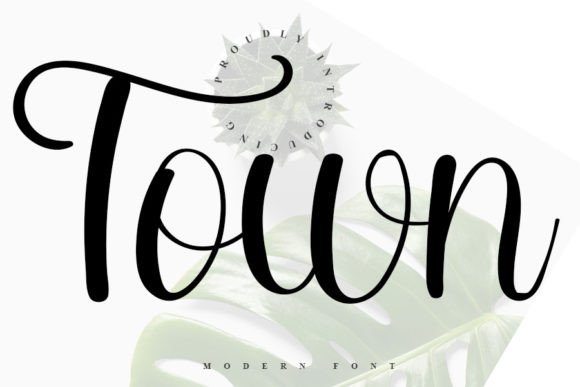
Journey through a world of enchantment with Town Font, the captivating handwritten font that ignites the flame of love. Emerge yourself in a world of romance and passion, where every letter dances with grace and elegance. Town Font is the perfect companion for those seeking to create heartfelt designs that leave an everlasting impression. Its versatility knows no bounds, adorning greeting cards, headlines, posters, and social media posts with a touch of magic. Embark on a typographic adventure with Town Font, where your imagination takes center stage and emotions run wild.
With its sweeping curves and delicate strokes, Town Font weaves a tale of romance and longing. Each character exudes a timeless charm, reminiscent of love letters penned under moonlit skies. Its organic flow emulates the rhythm of a beating heart, adding a personal touch to your creative endeavors. Whether you're crafting wedding invitations, Valentine's Day cards, or simply expressing your heartfelt emotions, Town Font becomes the canvas upon which your story unfolds.
Allow Town Font to transport you to a realm where love reigns supreme. Its enchanting aura captivates audiences, leaving them spellbound by its beauty. Elevate your designs to new heights, infusing them with a touch of elegance and sophistication. Town Font isn't just a font; it's an experience that ignites the senses and awakens the heart. Embrace the power of love and let Town Font guide you on a journey of artistic expression.